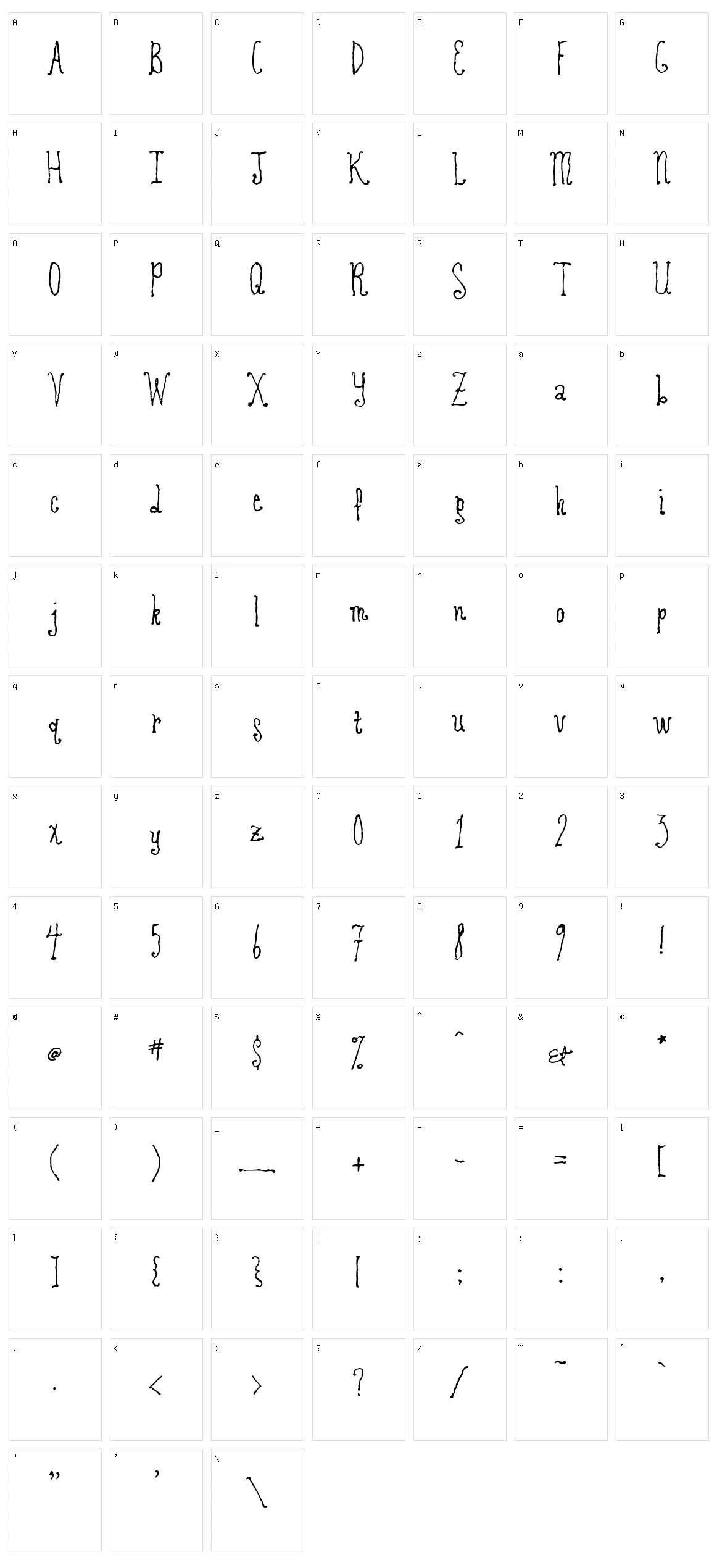
ABOUT THE TIME OF THE REVOLVING DOOR AND FRIENDS. . .
The Time of the Revolving Door and Friends was designed, inked and digitized by moi, l'Abcdarienne, in 2001. It contains plenty o' diacriticals and symbols (except the scientific ones that you would never use with this font) including the thorn and eth for you Icelandic folk and Anglo-Saxon language buffs.
This font is based on a little sketch I made of an imaginary children's book cover of the same title (don't make me type it again!) many years ago.